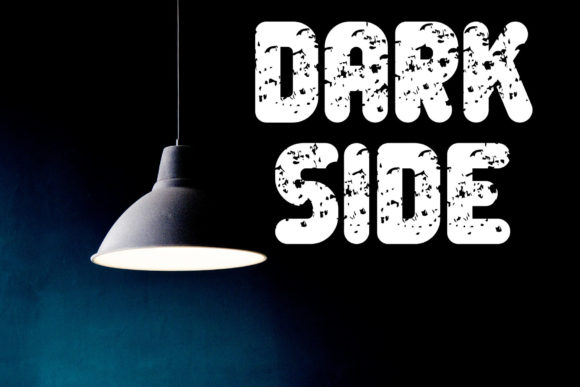
Journey into the realm of captivating typography with Dark Side Font, a display font family that oozes boldness and sophistication. This remarkable creation from Designvector10 is more than just a font; it's an artistic expression that transforms words into captivating visual narratives.
Unleash your creativity and let Dark Side Font's unique style ignite your imagination. With its bold, rough-styled strokes, it commands attention and leaves a lasting impression. Whether crafting business letters, designing logos, or creating eye-catching social media graphics, Dark Side Font has the versatility to elevate any project.
Dive into a world of boundless possibilities, where Dark Side Font's distinct character shines through. Let its commanding presence breathe life into your designs, adding a touch of intrigue and sophistication that captivates your audience. From sleek and modern layouts to vintage-inspired designs, Dark Side Font seamlessly adapts to any aesthetic.
Experience the power of typography as Dark Side Font takes your visual storytelling to new heights. Its striking lines and dynamic curves create a visual symphony that resonates with your audience, leaving them captivated by your every word. Let Dark Side Font be your creative companion, guiding you towards design excellence.
Incorporate Dark Side Font into your design arsenal and unlock a realm of endless possibilities. Its versatility and captivating style will transform your creative projects, leaving a lasting impression that sets you apart from the ordinary. Embrace the allure of Dark Side Font and embark on a typographic journey that's both bold and beautiful.